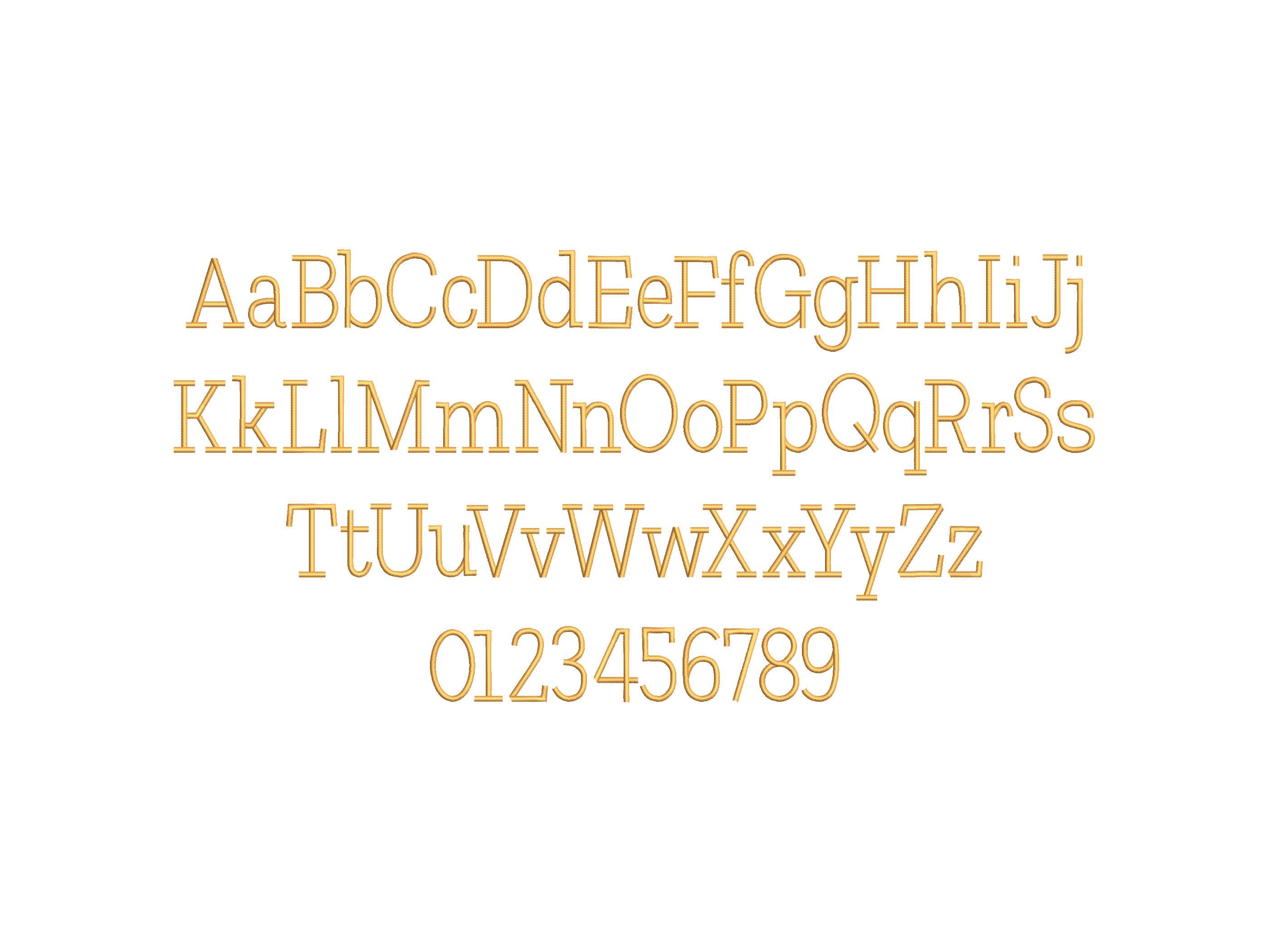
Included 2 fonts:
* satin stitch font with Christmas Tree
* satin stitch font
Entire alphabet uppercase and lowercase letters Aa-Zz, numbers 0-9, and punctuation.